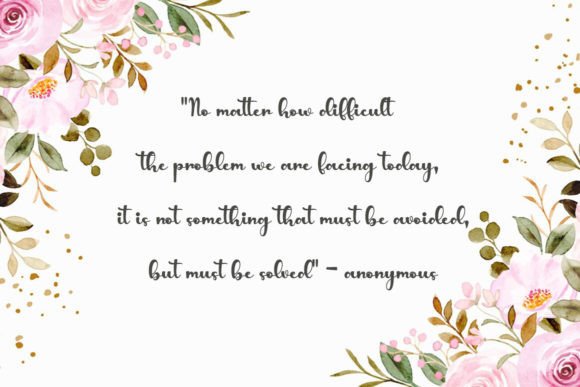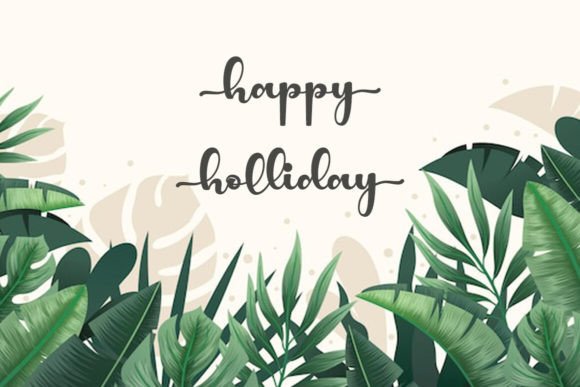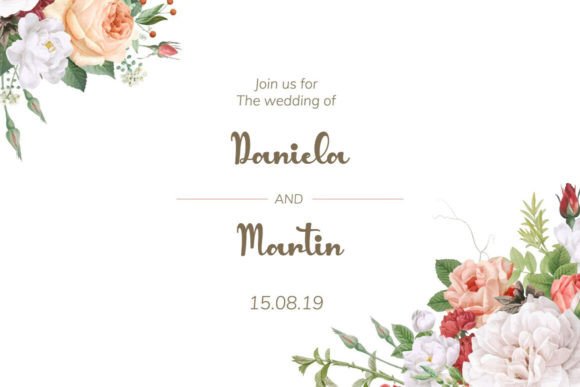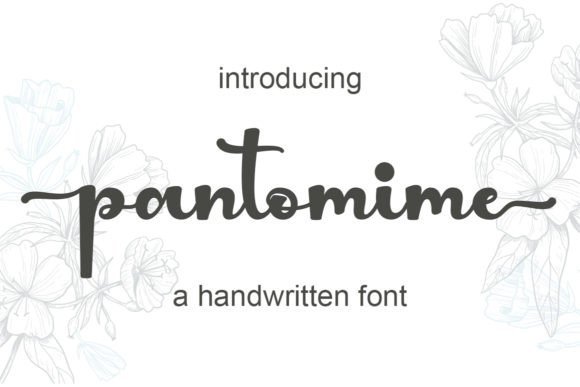
Introduction to Pantomime Font
Pantomime is an enchanting handwritten font perfect for logos, branding, quotes, clothing, tote bags, business cards, websites, and many more.
Fall in love with it, and let it take your projects to the highest level This font is PUA encoded which means you can access all the glyphs and ligatures with ease.
Pantomime Font offers exceptional quality and versatility, making it a valuable addition to your design toolkit. Whether you’re creating for personal projects or commercial use, Pantomime Font delivers professional results.